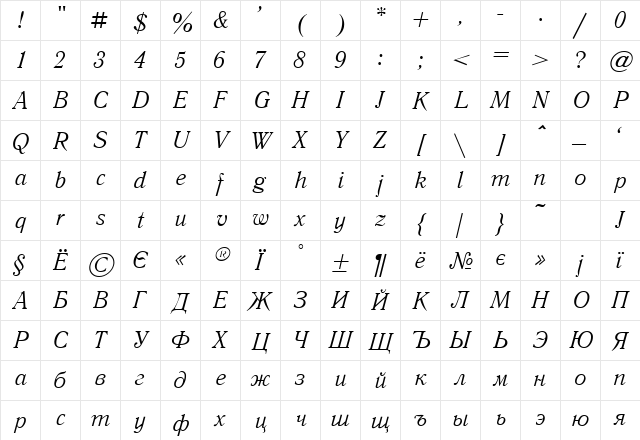
LiteraturnayaC Italic
Design Context for LiteraturnayaC Typeface
LiteraturnayaC offers clean, dependable letterforms without strong stylistic allegiance, making it a practical choice for designers who need flexibility. The dynamic lean of this cut emphasises speed and emphasis in any layout.